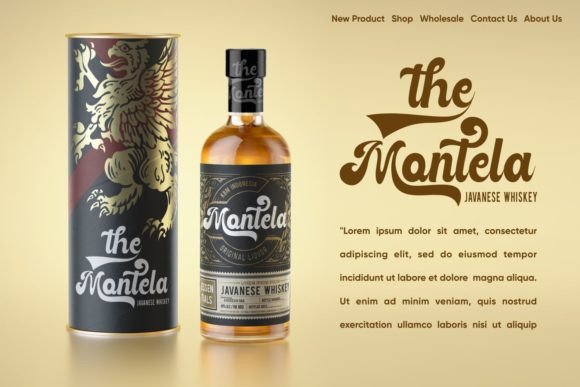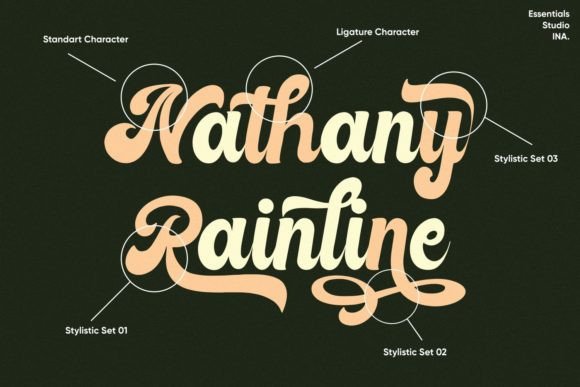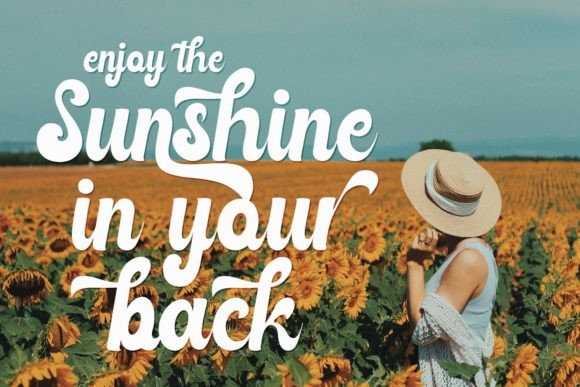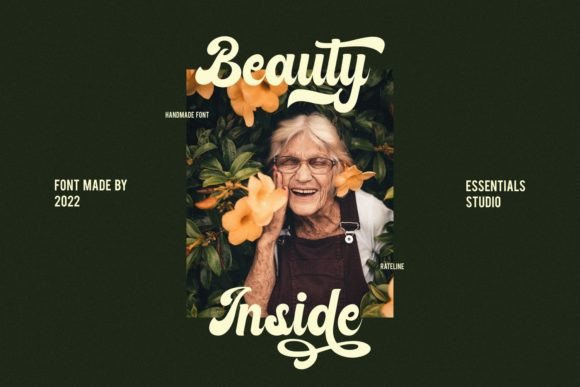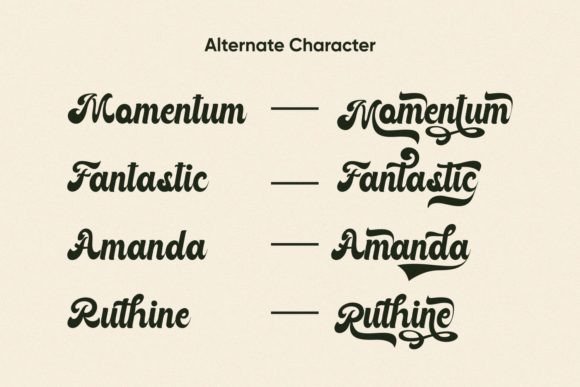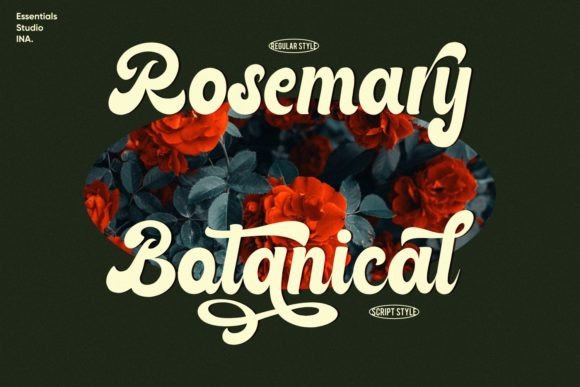
Introduction to Rateline Font
Rateline Is a modern retro handwritten font with stylish alternates.
Rateline is perfect for product packaging, branding project, magazines, social media, weddings, or just used to express words above the background This font is PUA encoded, which means you can access all of the glyphs and swashes with ease.